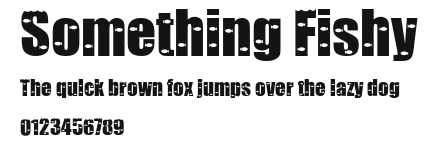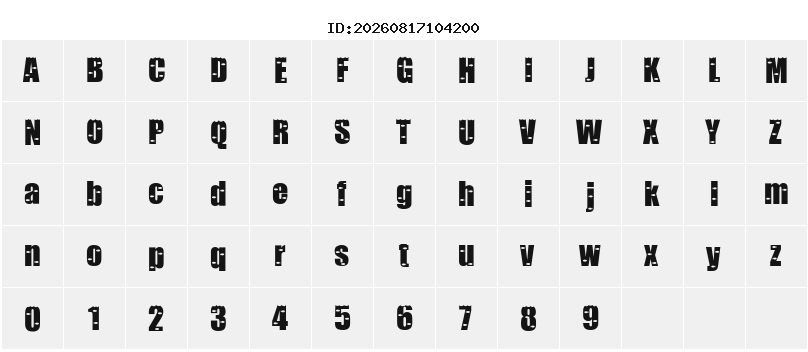
• Font Name: Something Fishy
• Full Font Name: Something Fishy
About Something Fishy.ttf
Something Fishy.ttf is a modern, elegant sans-serif font designed for ultimate readability and visual harmony. Perfect for branding, headlines, web design, and print materials.